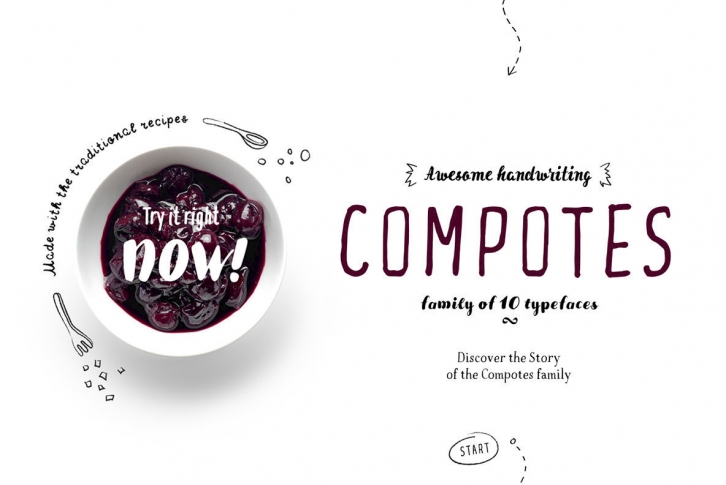
Compotes font family was created with love and with care about hand-made fonts. We have created a perfect collection for the home design, small barber’s shops, cafes and bakeries. Compotes typefaces are ideally combined with any type of design, for example, you can use them on labels, such as homemade jams and pickles. Compotes perfectly can be used in logos and in the presentations. We made 5 main typefaces: A — Apple, B — Basilic, C — Citro, D — Dew, E — Espresso. In addition, we have developed five additional typefaces for each typeface!